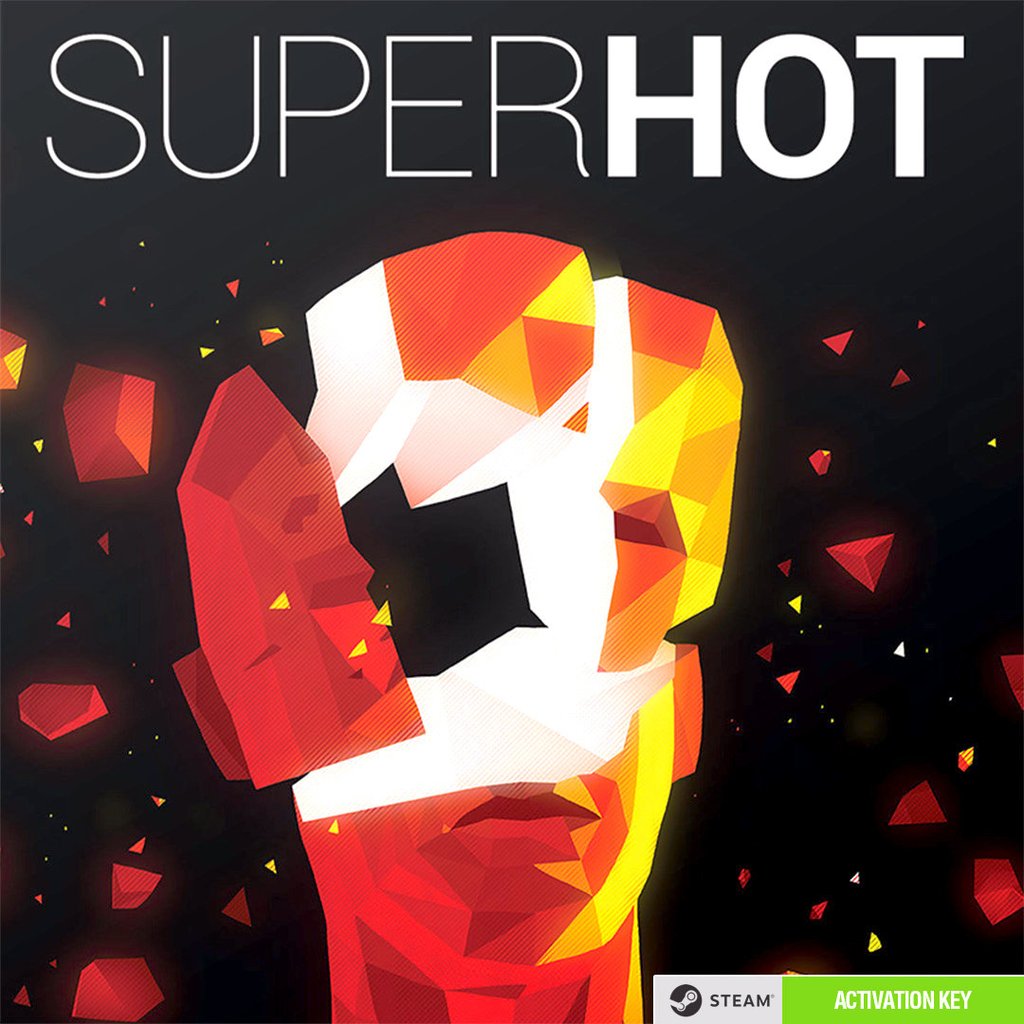
Superhot (video game) Font
Fonts in UseSuperhot was developed by the Polish game studio, Superhot Team. The game is a first-person shooter with a unique mechanic where time moves only when the player moves, creating a puzzle-like experience that requires strategy and quick reflexes.
The game title's font, Roboto, employs both Thin and Bold weights and is a neo-grotesque sans-serif typeface family developed by Google as the default font for Android. It was updated in 2014 but the Superhot logo still uses the old version. You can download both fonts for free here at FontGet.